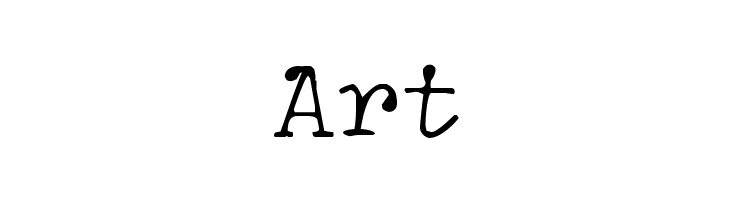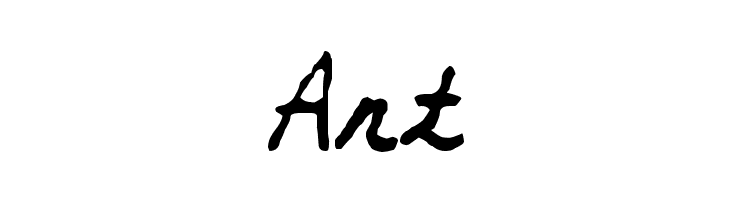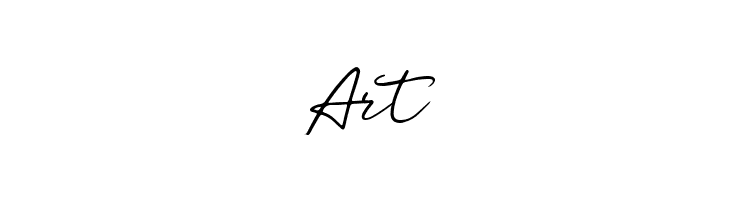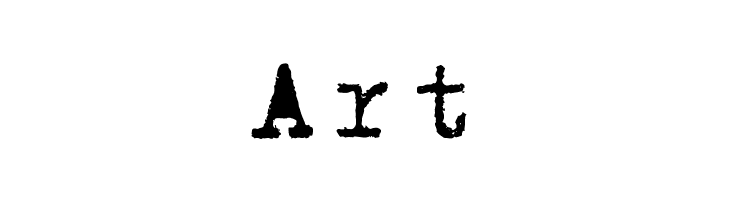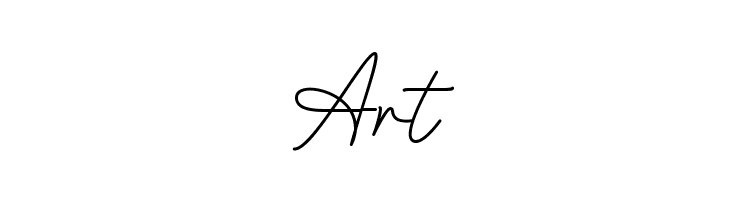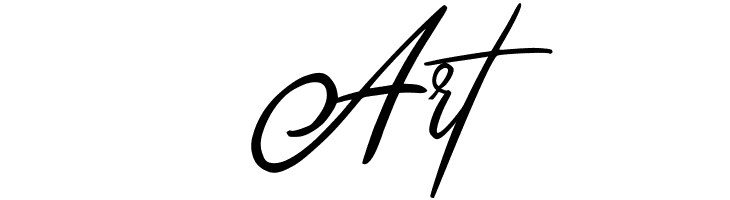
A charming, italic typewriter-style font with a handwritten feel.
A vintage typewriter-style font with a handwritten, authentic feel.
A dynamic, cursive script font with a natural handwriting style.
An elegant, flowing script font with a natural handwriting style.
A flowing, cursive font with a natural handwriting style, perfect for elegant and personal designs.
A vintage typewriter-style font with textured, uneven characters.
A graceful and flowing script font with a natural handwriting style.
An elegant, flowing script font with a natural handwriting style.
A flowing, cursive font with a natural handwriting style.
A fluid and elegant script font with a natural handwriting style.